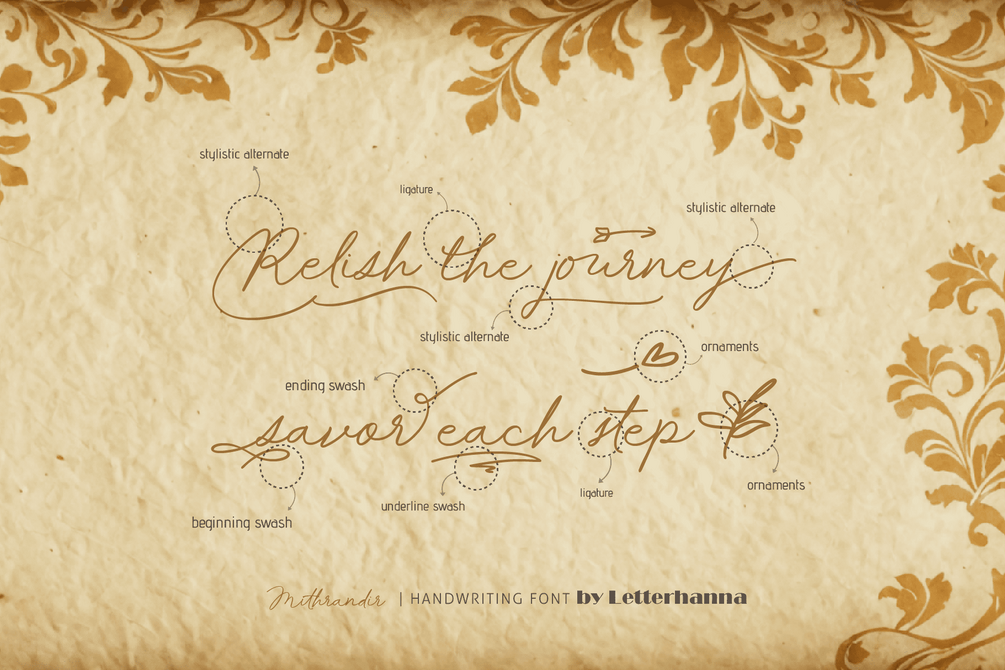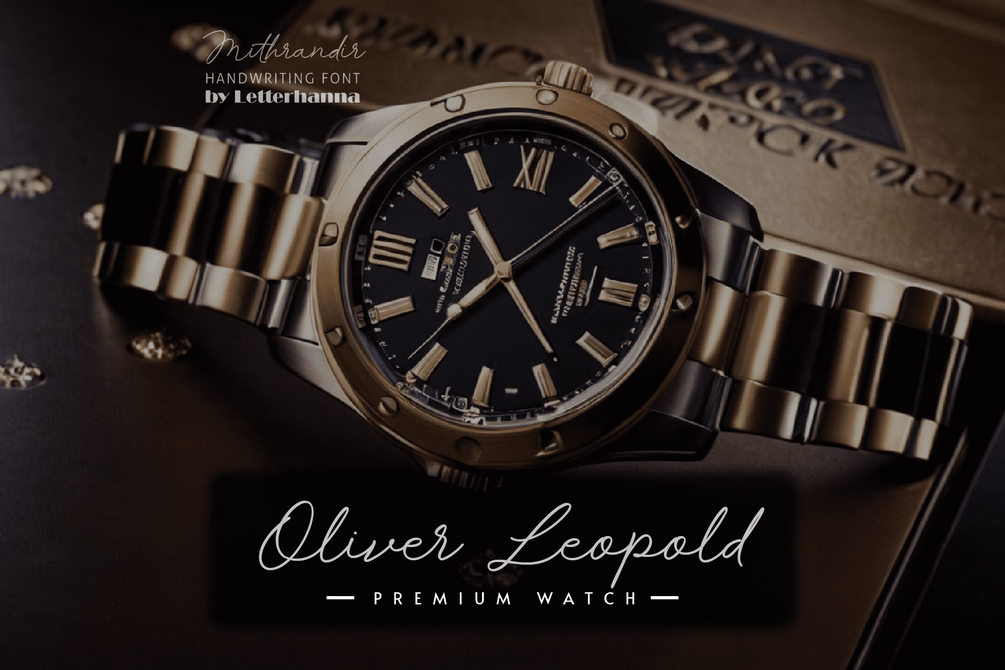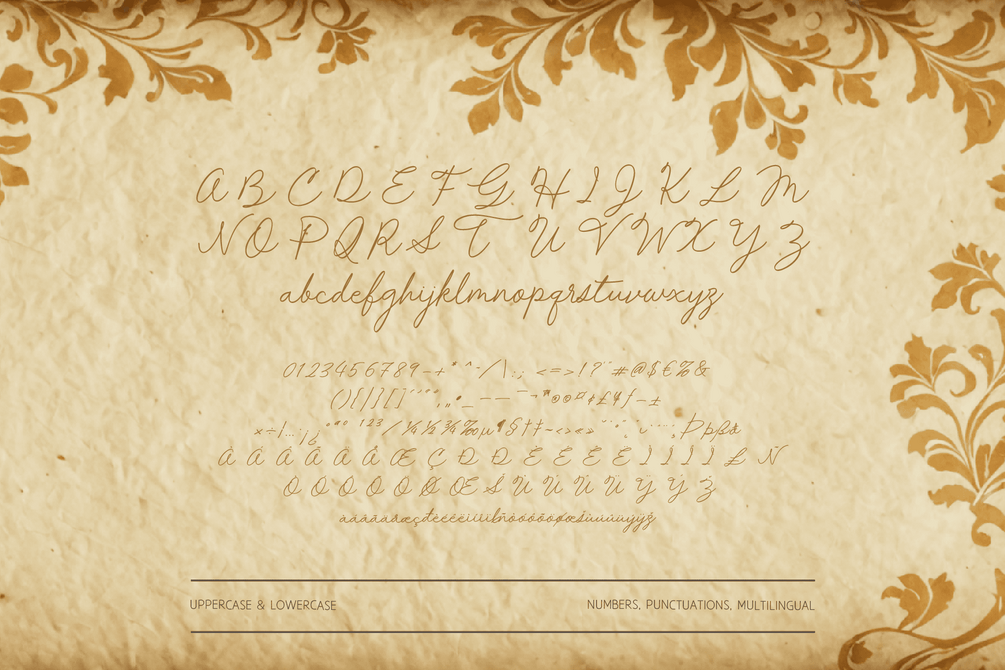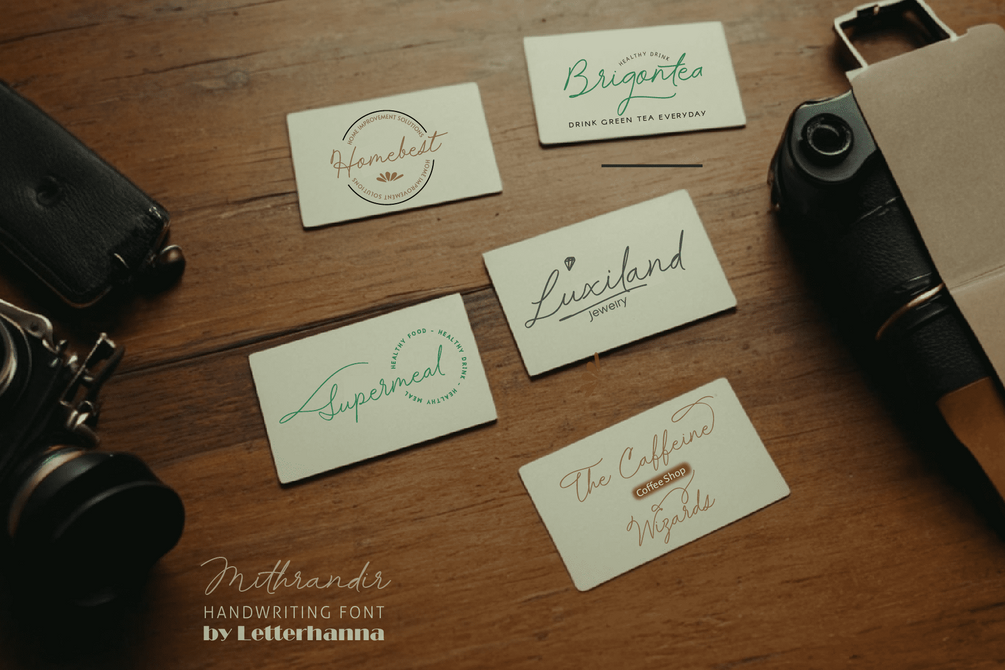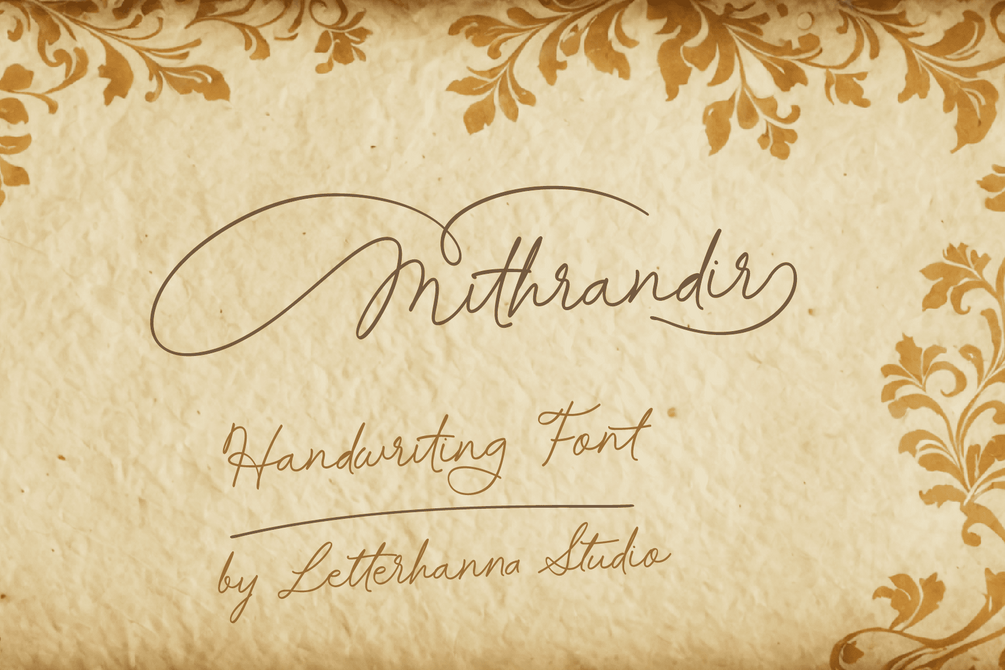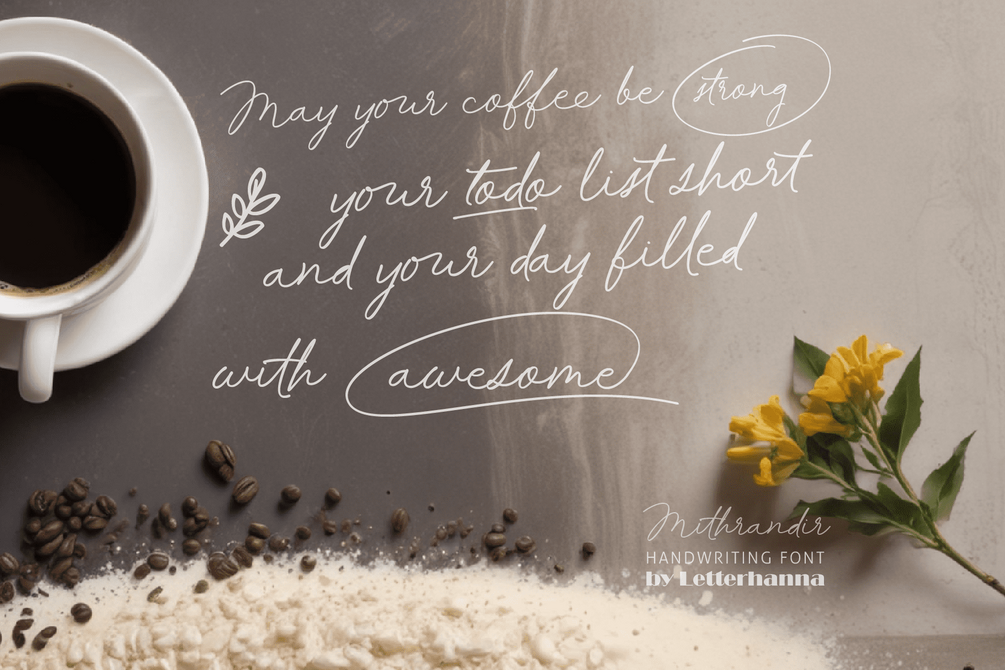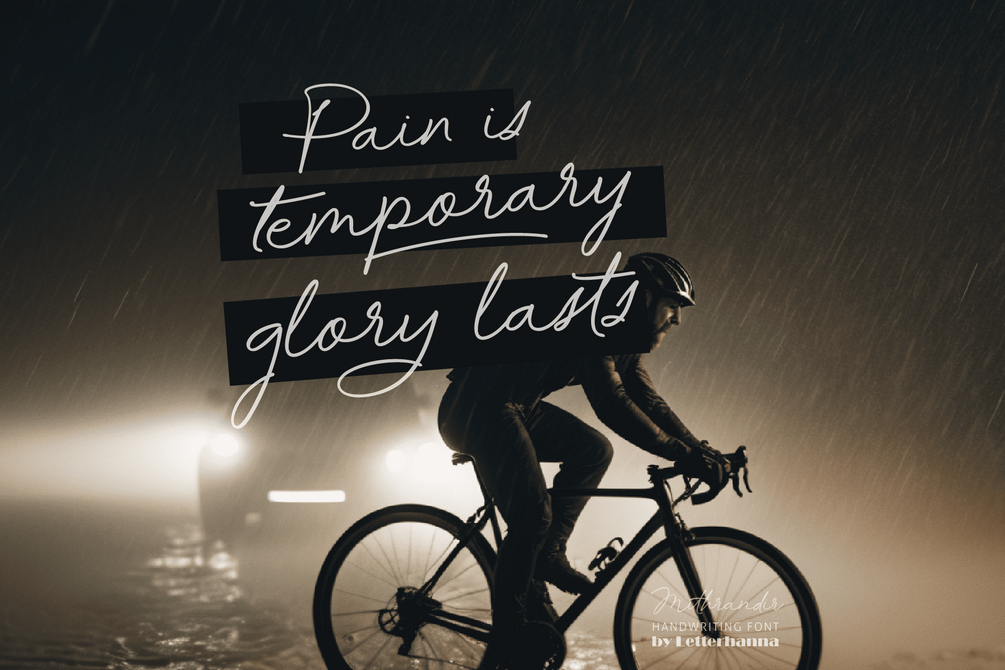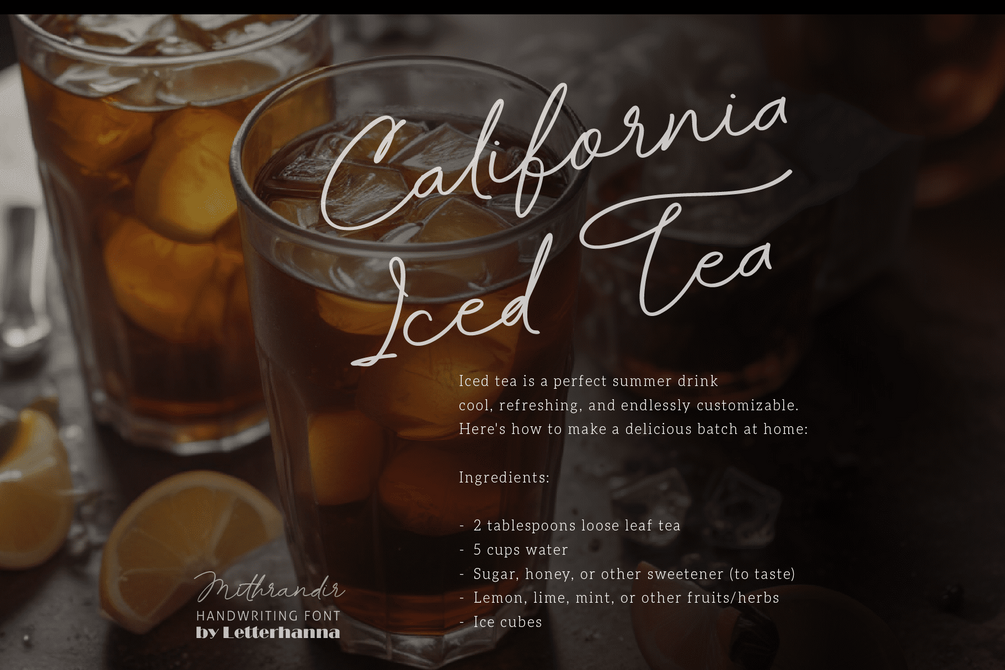
Mithrandir Font
Introducing Mithrandir, our new elegant handwriting script font.
Crafted with elegance in mind, Mithrandir boasts a timeless script style that elevates your words to new heights. This versatile font isn't just beautiful, it's packed with features to empower your creativity.
Unleash your inner artist with a wealth of stylistic alternates, swashes, and ligatures. Mithrandir allows you to effortlessly add a touch of flair and personality to your writing, ensuring your work stands out from the crowd
• Uppercase and lowercase letters
• Numbers and punctuation marks
• Multilingual support
• Ligatures
• Beginning and ending swashes
• Underline swashes
• Stylistic alternates
• Ornaments
• Easy access to swashes using ligatures